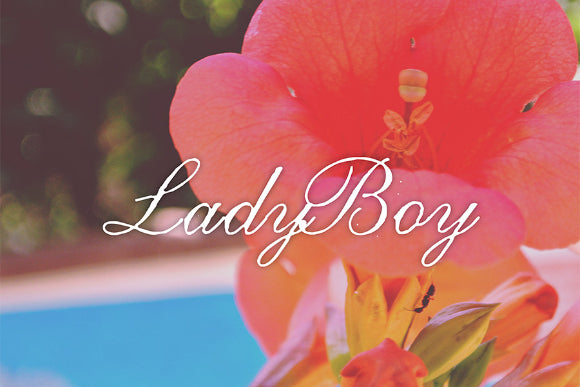
Free LadyBoy Font
Introducing you to the absolutely beautiful free ladyboy font. This is a downloadable free typeface file brought to you by Free Design Resources. You can create a professional designs with this fancy font.